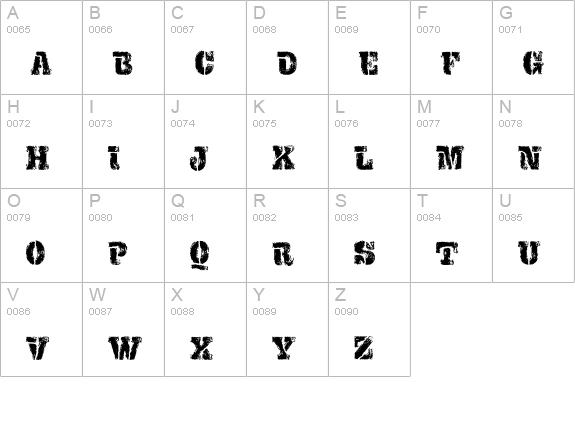
VTKS EXAME font is a strikingly unique typeface that captures attention with its bold and edgy design. Its distinctive letterforms exhibit a sense of strength and confidence, making it perfect for adding a touch of character to your projects. With its unconventional and artistic style, VTKS EXAME font stands out from the crowd, making it an excellent choice for branding, logo design, posters, and any creative endeavor that calls for a visually captivating font. What sets VTKS EXAME font apart is not only its remarkable aesthetic appeal but also the fact that it is freely available to download. You can easily access this remarkable font at FontsMarket.com, where you can find a wide array of fonts to suit your design needs. Whether you're a graphic designer looking to create eye-catching visuals or an artist in search of a distinctive font to express your creativity, VTKS EXAME font is the ideal choice. Its versatility allows it to be used in a multitude of design projects, adding a touch of originality and flair. Download VTKS EXAME font today and unleash your creativity with a font that truly stands out. Explore the endless possibilities this font offers and create stunning designs that leave a lasting impression. Don't miss out on this incredible opportunity to enhance your projects with a free font that is as visually captivating as it is versatile. Visit FontsMarket.com now and make VTKS EXAME font a part of your design arsenal.